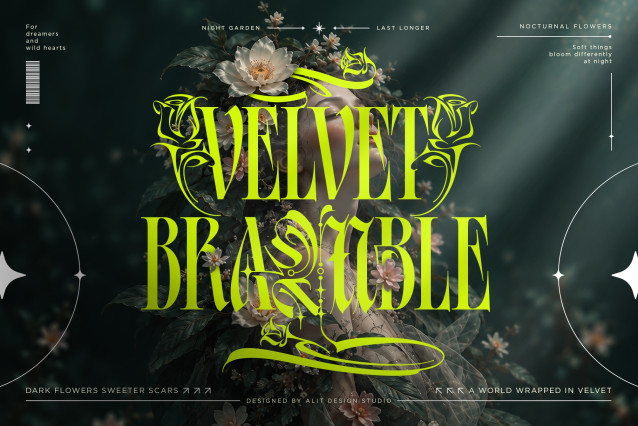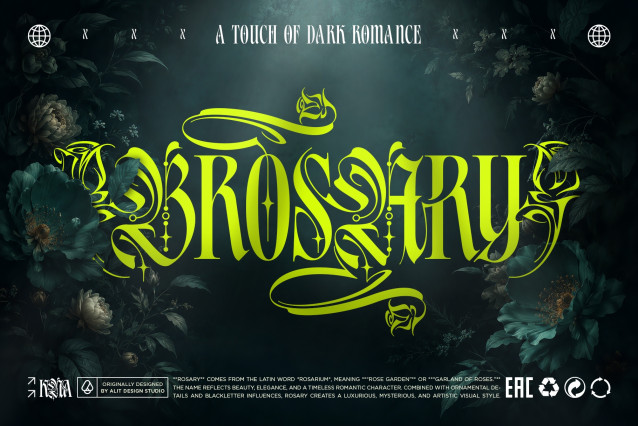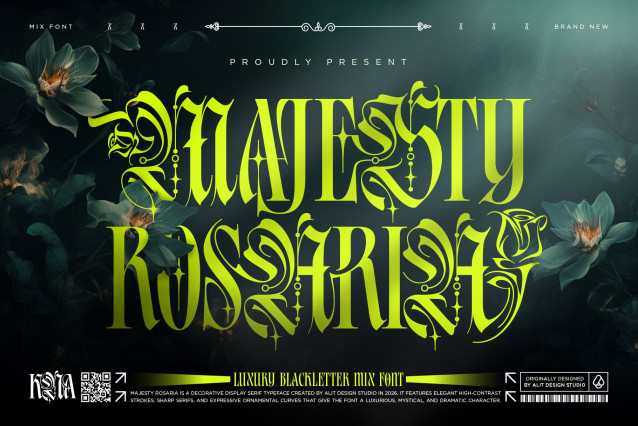
Majesty Rosaria – Luxury Blackletter Mix Font
Step into a world of dark romance and timeless elegance with Majesty Rosaria, a breathtaking decorative display typeface that masterfully blends high-contrast serif sophistication with gothic blackletter influences. Created by Alit Design Studio, this font is a love letter to the enchanting mystery of night gardens, bringing a luxurious, dramatic, and slightly mystical character to your designs.
Majesty Rosaria stands out with its sharp, elegant serifs and highly expressive ornamental curves. What truly makes this typeface magical is its extensive collection of stylistic alternates, beautifully intertwined with intricate rose illustrations and thorny vine motifs. This allows you to effortlessly transform simple text into customized typographic art that feels bespoke, rich, and unforgettable.
Whether you are designing for a luxury brand or leaning into a “dark fantasy” aesthetic, Majesty Rosaria offers the perfect balance of edge and opulence.
Perfect For:
- Luxury Branding & Packaging: High-end cosmetics, perfume boxes, wine labels, and boutique apparel.
- Editorial & Publishing: Striking magazine headers, dark fantasy book covers, and mystical tarot card designs.
- Entertainment & Art: Gothic movie posters, band merchandise, album art, and event invitations.
- Statement Typography: Tattoos, logo design, and dramatic social media quotes.